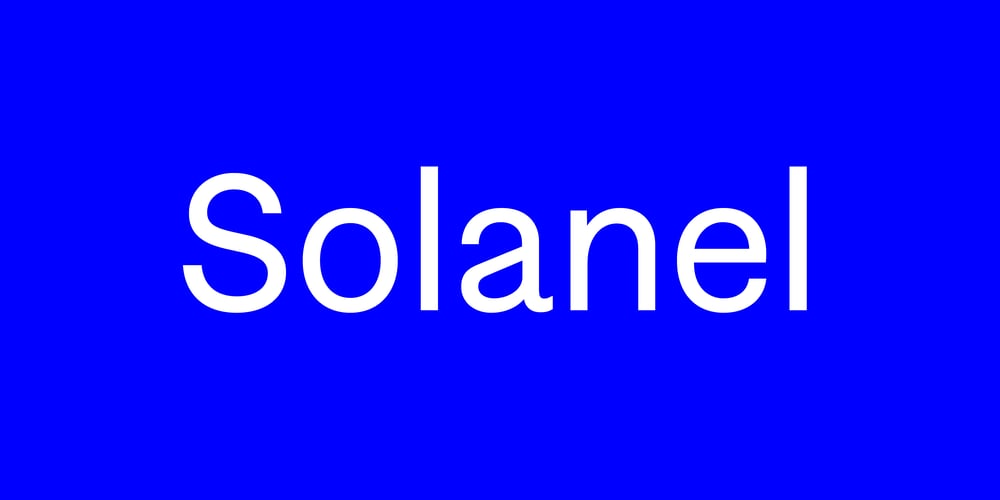
Solanel Font Family was designed by Nico Inosanto and published by Nootype. Solanel contains 14 styles and family package options. Solanel is a neo-grotesque with flawless curves. This is a low contrasted and smooth sans serif with subtle and effortless details. One of the main particularity is its italic, which is not a rendition of a slanted roman, but a mix of a rotated and slanted version, which give a “rotalic” feel. The large range of style, from UltraThin to Black help to give flexibility to this family. This family contains many OpenType features, such as Alternates, Small Caps, Proportional Figure, Tabular Figures, Numerators, Superscript, Denominators, Scientific Inferiors, Subscript, Ordinals and Fractions, which make that typeface useful in various projects.Larsseit family supports Latin and Cyrillic, all these languages are covered:Latin language support:Afar, Afrikaans, Albanian, Asturian, Azeri, Basque, Bosnian, Breton, Bulgarian, Catalan, Cornish, Corsican, Croatian, Czech, Danish, Dutch, English, Esperanto, Estonian, Faroese, Filipino, Finnish, Flemish, French, Frisian, Friulian, Gaelic, Galician, German, Greenlandic, Hungarian, Icelandic, Indonesian, Irish, Italian, Kurdish, Latin, Latvian, Lithuanian, Luxembourgish, Malagasy, Malay, Maltese, Maori, Moldavian, Norwegian, Occitan, Polish, Portuguese, Provençal, Romanian, Romansch, Saami, Samoan, Scots, Scottish, Serbian, Slovak, Slovenian, Spanish, Swahili, Swedish, Tagalog, Turkish, Walloon, Welsh, WolofCyrillic language support:Adyghe, Avar, Belarusian, Bulgarian, Buryat, Chechen, Erzya, Ingush, Kabardian, Kalmyk, Karachay-Balkar, Karakalpak, Kazakh, Komi, Kyrgyz, Lak, Macedonian, Moldovan, Mongol, Permyak, Russian, Rusyn, Serbian, Tatar, Tofa, Tuvan, Ukrainian, Uzbek